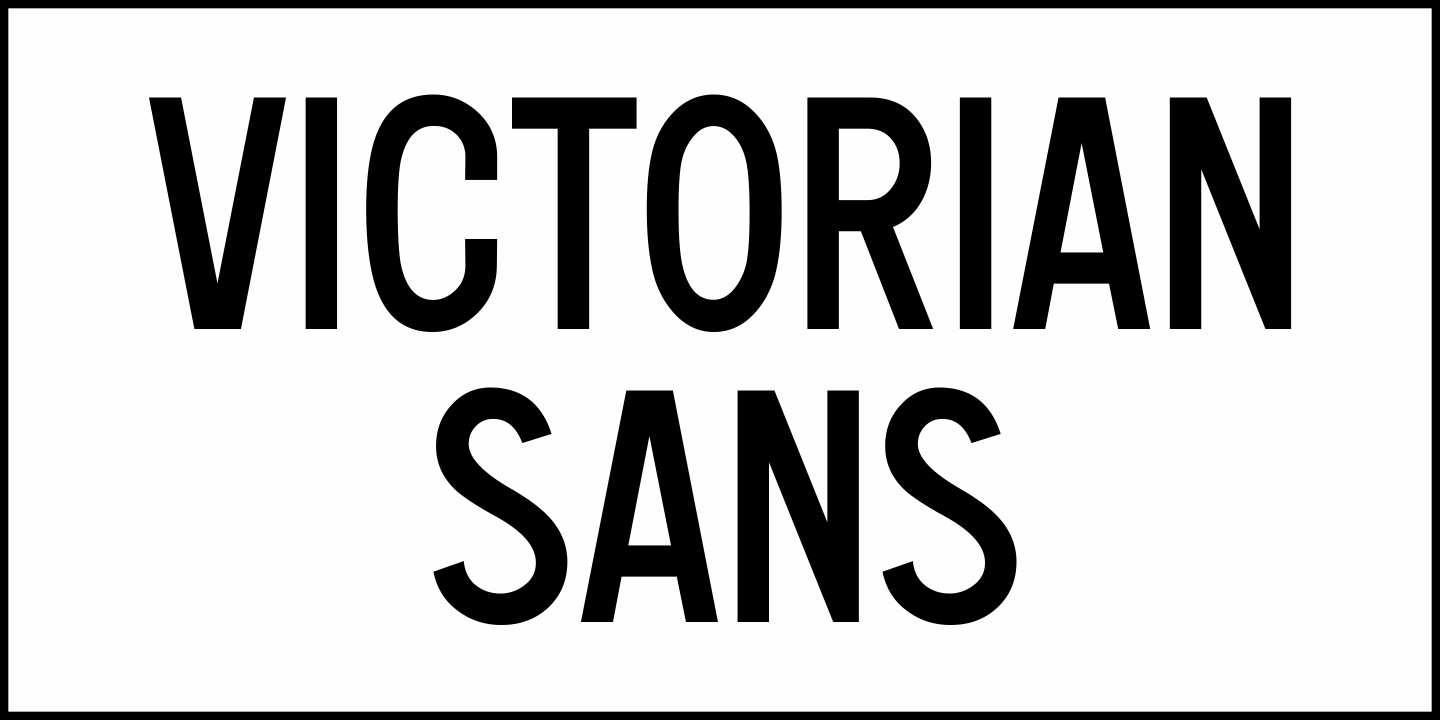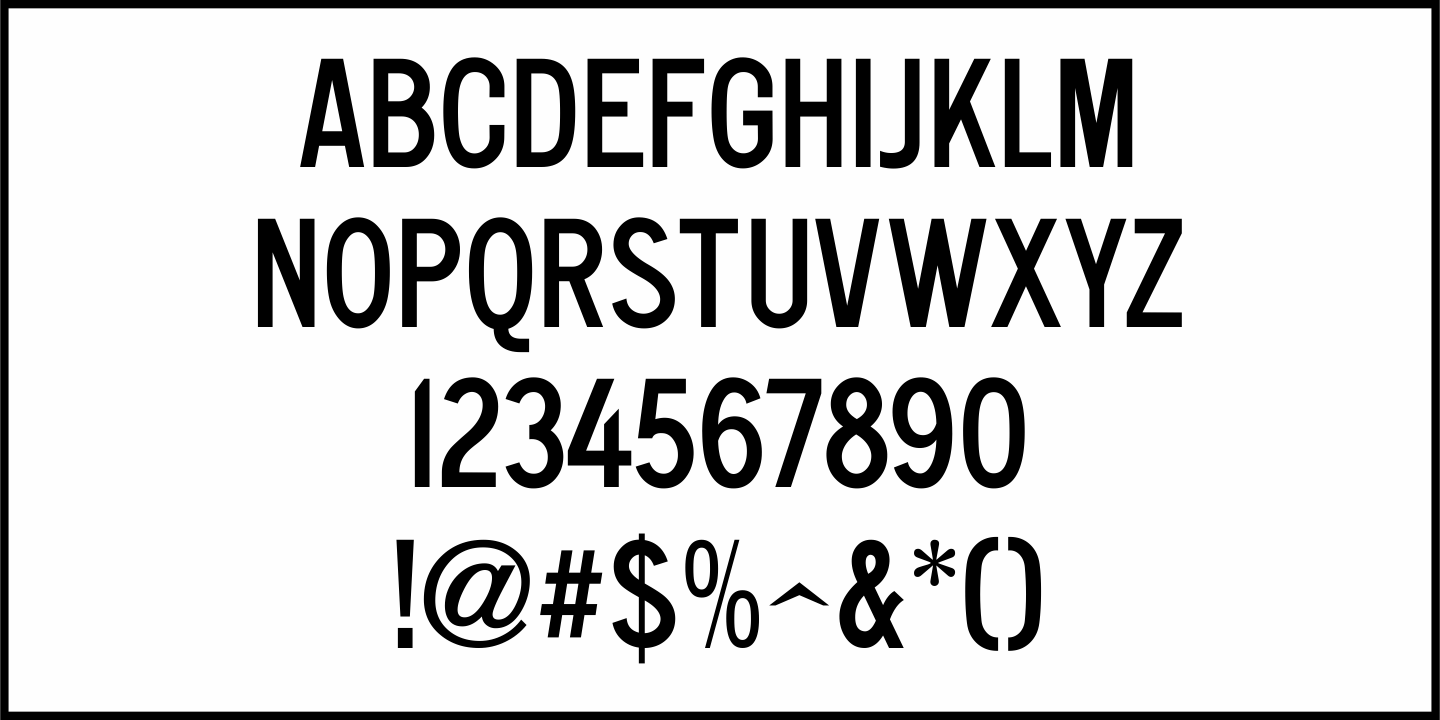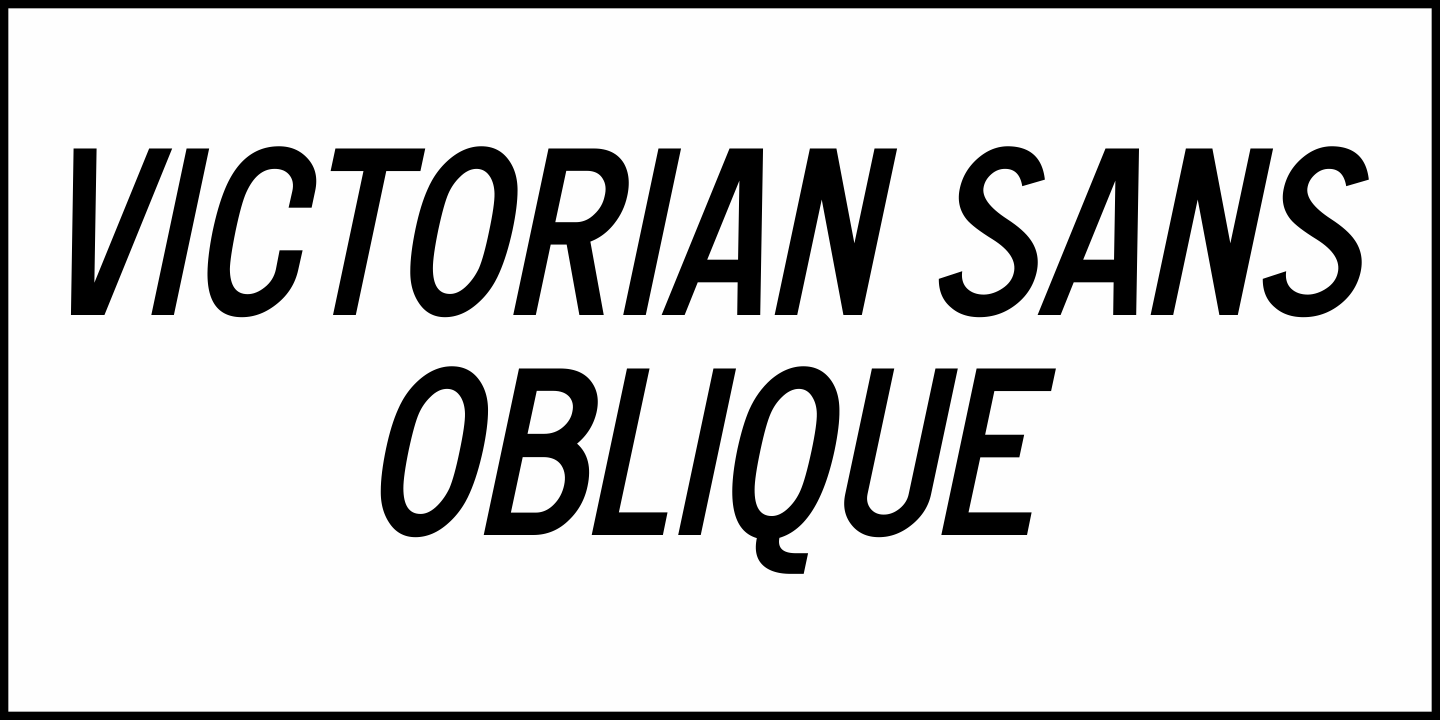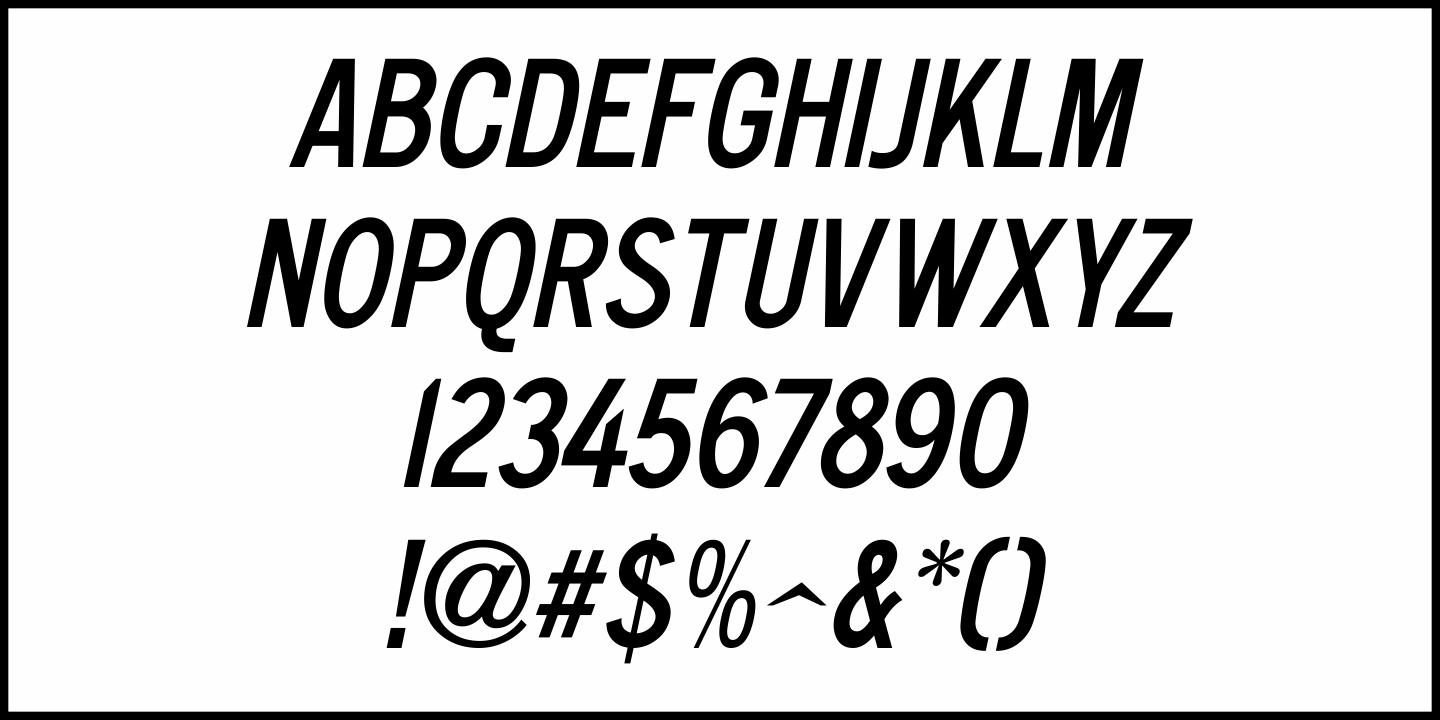
Victorian Sans
Victorian Sans JNL is available in both regular and oblique versions and is based on one of the numerous versions of Philadelphia Lining Gothic; originally released around 1895 by MacKellar, Smiths & Jordan.
In the days of letterpress, a lining type face had it's numerals line up with the cap height and base line of the design.  Many other designs of the time used 'old style' numerals which would extend below the base line.
Victorian Sans JNL Regular by Jeff Levine Fonts